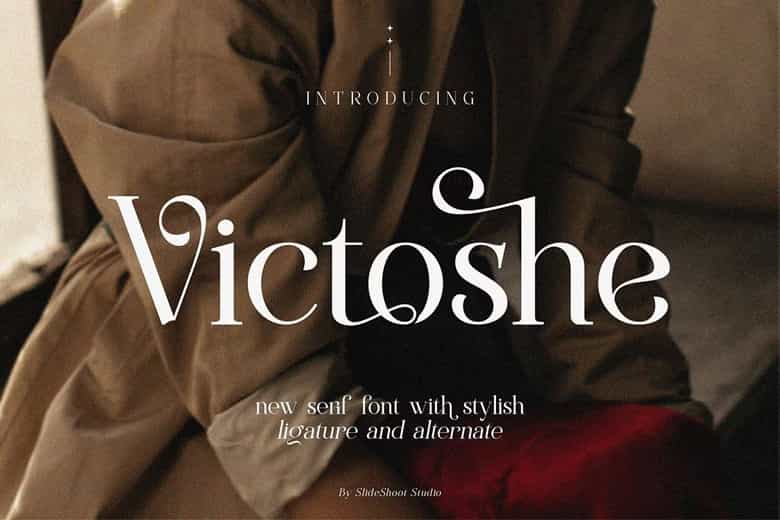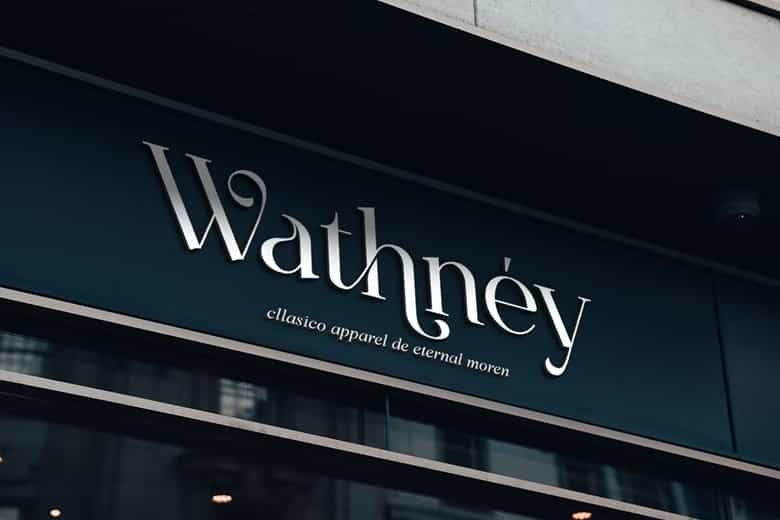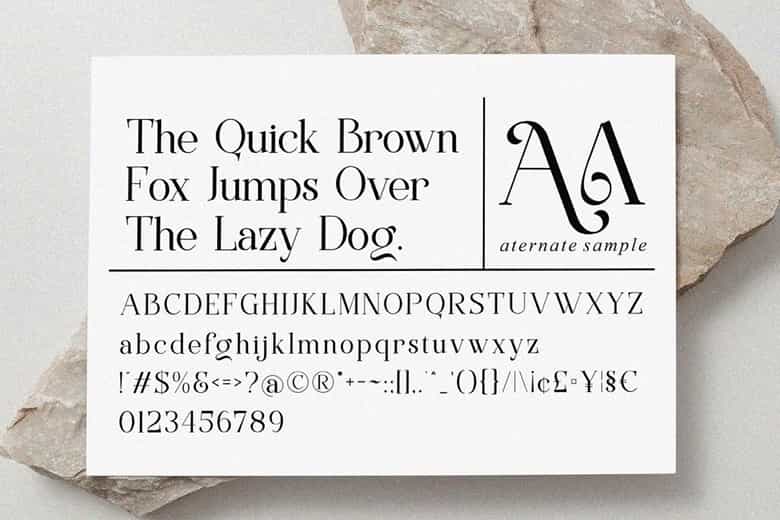
Victoshe is a modern serif font for all branding and logo designs that will perfectly suit your needs. This is a very new and elegant serif font that has some great character. This font is ideal for invitation cards, stylish logos, awesome movie titles, movie names, business cards, book titles, brand names and any other design works.